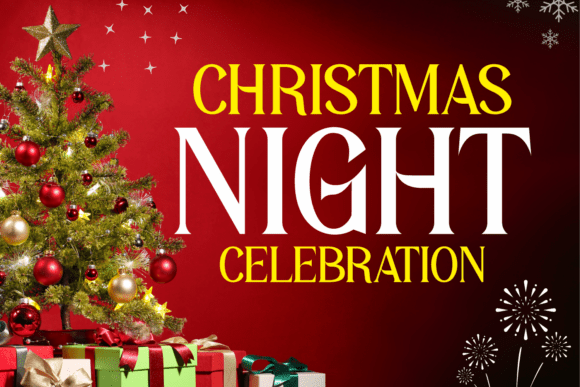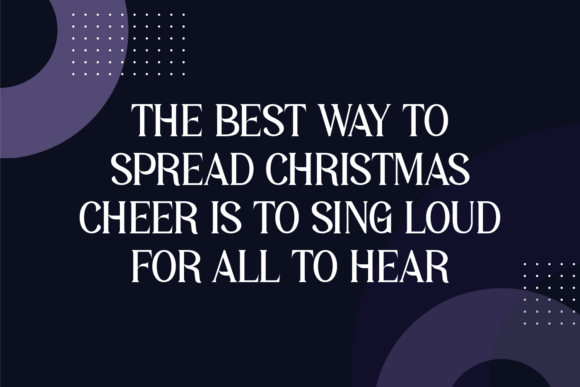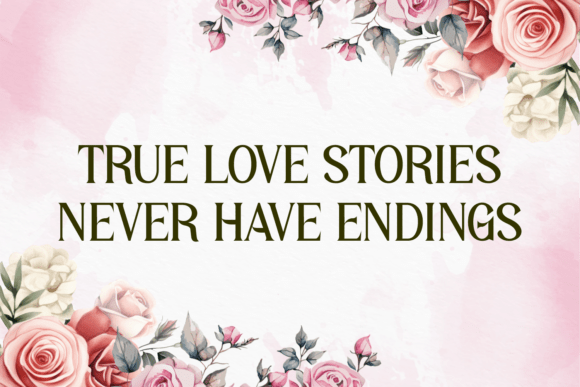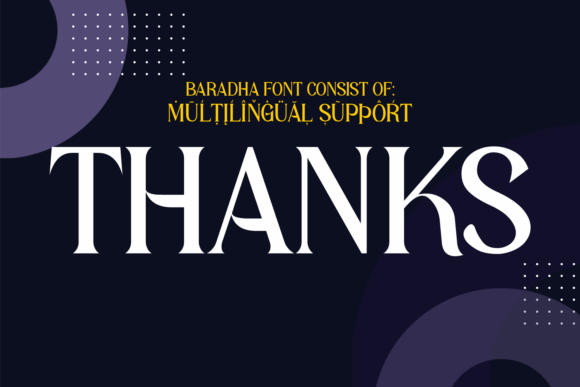
Discover the Elegance of Baradha Font: Elevate Your Designs with Sophistication
In the realm of typography, the right font can make all the difference in transforming a design from ordinary to extraordinary. For those seeking a blend of modernity and classic sophistication, the Baradha font stands out as a premier choice. This meticulously crafted serif typeface is designed to bring a contemporary twist to your design ventures, infusing them with a sleek elegance that captivates audiences across various mediums.
The Essence of Baradha Font
At the heart of the Baradha font lies its unique blend of traditional serif forms with a subtle, modern curvature. This nuanced approach to typography lends an undeniable charm to any design, making it an excellent choice for a wide range of applications. Whether you’re working on the prose of a novel, crafting headlines for news pieces, creating alluring book titles, or expressing your inspired moments through narrative, the Baradha font brings an inarguable appeal to each word.
Unleashing Creativity with Baradha
The Baradha font is not just a typeface; it’s an invitation to venture into a world where elegance and minimalism converge. Designers and crafters can find inspiration in its clean lines and subtle curves, which work harmoniously to elevate creative projects. With Baradha, your designs won’t just convey a message; they’ll radiate sophistication and draw viewers in with their refined aesthetic.
Versatility Across Mediums
One of the standout features of the Baradha font is its versatility. Its classic yet modern appeal ensures that it can seamlessly integrate into various design projects, including:
- Print Design: Ideal for novels, magazines, newspapers, and book titles, where readability and elegance are paramount.
- Digital Media: Perfect for website content, blogs, and digital publications, where a professional and clean look is essential.
- Advertising: Great for headlines and promotional materials, where grabbing attention with style is key.
- Packaging: Suitable for product packaging that requires a touch of sophistication and class.
Why Choose Baradha Font?
Choosing the Baradha font for your design projects comes with several advantages:
- Unique Aesthetic: Offers a fresh take on traditional serif fonts, making your designs stand out.
- Readability: Ensures that your content is easy to read, across various sizes and mediums.
- Flexibility: Can be used for both body text and headlines, providing a cohesive look.
- Timeless Appeal: Combines the best of modern and classic typography, ensuring your designs remain relevant.
The Baradha font is more than just a typeface; it’s a design statement. It embodies the perfect marriage of elegance, modernity, and readability, making it an indispensable tool for designers and crafters. Whether you’re aiming to create a lasting impression with a novel, bring forth the allure of a professional publication, or simply elevate your digital content, the Baradha font is poised to transform your creative ventures into sophisticated works of art. Immerse yourself in the sleek elegance of Baradha and witness your designs radiate with a refined aesthetic that captivates and inspires.